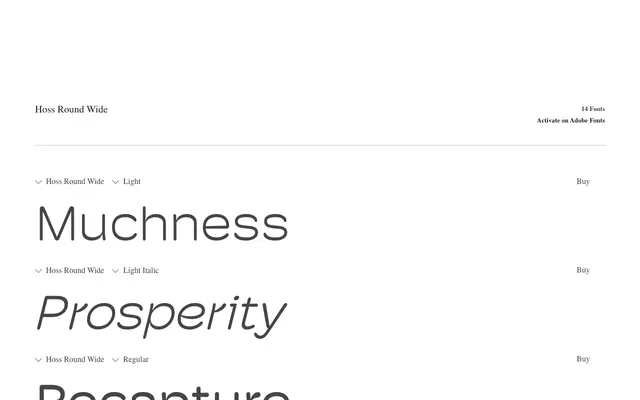
Hoss Round Wide
A wide-cut grotesque with rounded terminals and subtle horizontal contrast, spanning seven weights with matching italics.
Hoss Round Wide applies a gentle horizontal stroke contrast to a wide grotesque structure, combined with rounded terminals that give the letterforms a friendly but purposeful quality. Seven weights from Light to Ultra each include an italic, making for 14 styles in total. The family is suited to brand identity and packaging work where character is needed without sacrificing legibility.
A grotesque sans with horizontal (reverse) contrast and rounded terminals, placing it firmly in the grotesque sans category with a distinctive structural approach to stroke modulation.